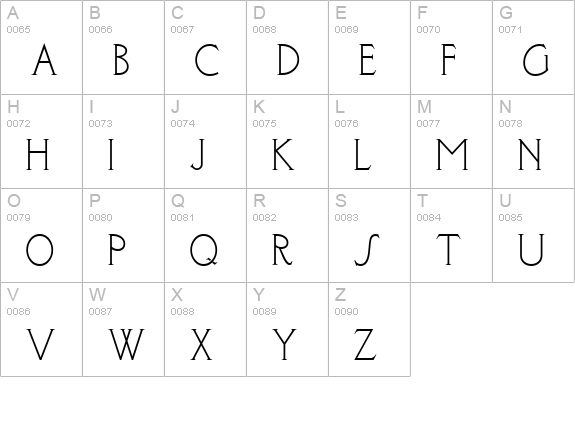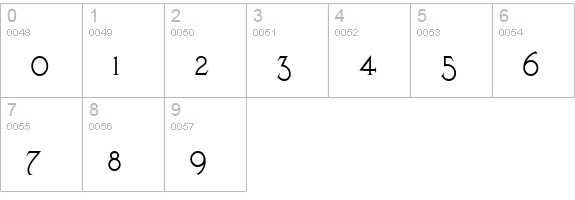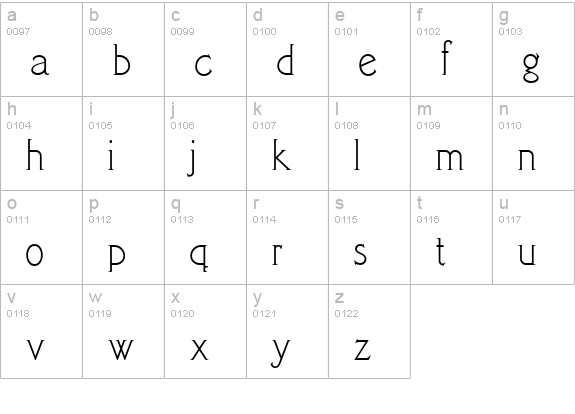
Parsifal Olde Style NF Font Details
Parsifal Olde Style NF is a stunning font that effortlessly transports you to the bygone era of elegance and sophistication. This timeless typeface is a perfect blend of classic charm and modern versatility, making it a must-have for any designer or typographer. With its intricate serifs, delicate curves, and graceful strokes, Parsifal Olde Style NF exudes a sense of nostalgia and refinement. It captures the essence of traditional calligraphy, reminiscent of the elegant scripts found in vintage manuscripts and historic documents. What sets Parsifal Olde Style NF apart is its ability to seamlessly adapt to a variety of design projects. Whether you're working on a formal invitation, a vintage-inspired logo, or a romantic wedding stationery, this font will elevate your creations to new levels of sophistication. But what makes Parsifal Olde Style NF truly special is that it is freely available to download at FontsMarket.com. Yes, you read that right! This magnificent font can be yours without any cost, allowing you to explore its timeless beauty and unleash your creativity without any limitations. So, why wait? Embrace the beauty of the past and infuse your designs with the elegance of Parsifal Olde Style NF. Download this remarkable font today from FontsMarket.com and unlock a world of possibilities for your next project.